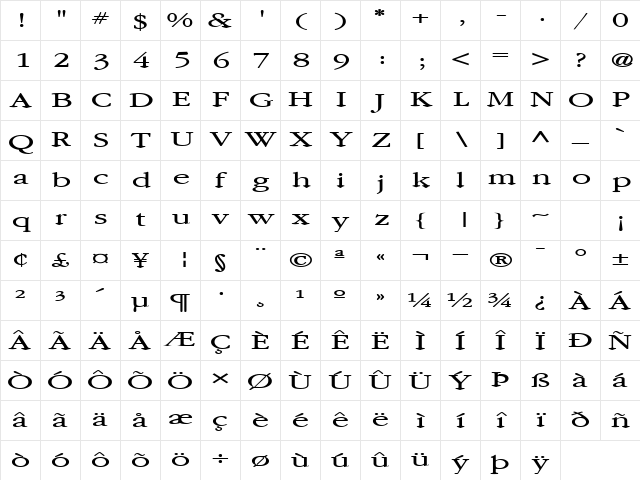
Complete ElvisSaxHorn45 Bold glyph index. Displaying only characters natively supported by ElvisSaxHorn45 Bold font.
ElvisSaxHorn45 is a composed and adaptable typeface that performs quietly and consistently across a wide range of design contexts. Its bold stroke weight gives it real presence on the page.